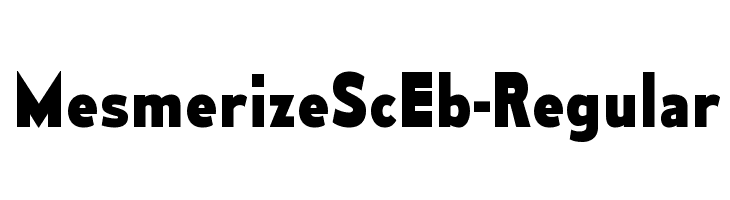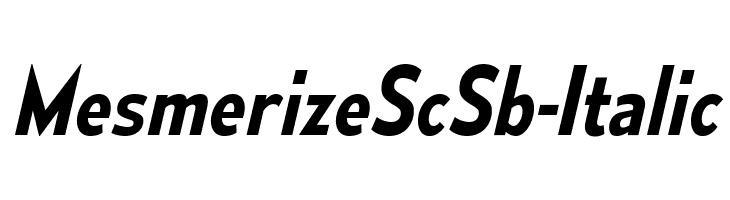
A modern, clean sans-serif font with a slightly condensed style.
A bold, modern font with geometric influences and strong, uniform strokes.
A bold, modern italic font with a sleek, condensed style.
A bold, geometric typeface with a modern and impactful style.
A modern, geometric sans-serif font with a clean and professional look.
A bold, modern sans-serif font with geometric letterforms and consistent stroke widths.
A bold, modern sans-serif font with clean lines and strong presence.
A clean, modern font with a geometric and minimalistic design.
A modern, italic, and slightly condensed font with medium contrast.
A modern sans-serif font with geometric shapes and uniform strokes.